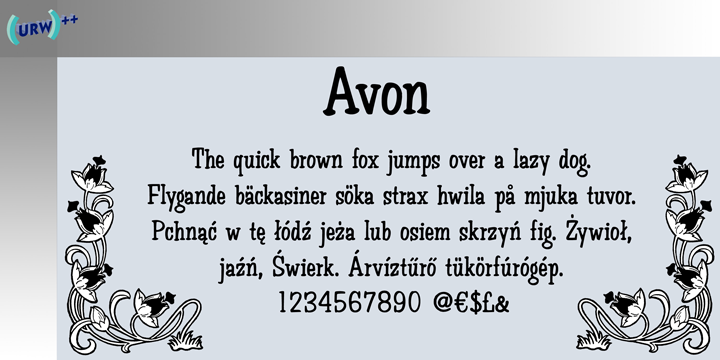
The Avon Font is an excellent choice for designs that aim for a classic, sophisticated, and distinctly elegant aesthetic, often with a subtle vintage flair. Imagine it gracefully adorning the packaging of a high-end beauty product, adding a touch of timeless class to luxury brand stationery, or enhancing the refined feel of a prestigious editorial layout. It's also perfectly suited for formal invitations, literary book covers, antique-inspired signage, and any project where you want to convey a sense of heritage, trustworthiness, and understated beauty. Its refined serifs and balanced letterforms make it ideal for conveying authority and traditional elegance.
What makes the Avon Font so exciting is its masterful blend of classic typographical principles with a clear, contemporary execution. It often features graceful curves and precise serifs that give it a distinguished character without feeling overly ornate or old-fashioned. This font has an intelligent and sophisticated presence that can instantly elevate your design, making it feel both established and inviting. It’s designed to provide excellent legibility in both large display sizes and smaller body text, ensuring your message is communicated with clarity and refined grace.
The Avon Font family typically includes a comprehensive range of weights, from a delicate light for subtle accents to a robust bold for impactful statements, often accompanied by elegant italic versions. This extensive range provides designers with ample flexibility to create nuanced visual hierarchies and add sophisticated contrast within their typography. With its broad character set, it supports multiple languages, further expanding its global applicability. Explore the refined elegance of Avon Font Free Download for your next prestigious project.